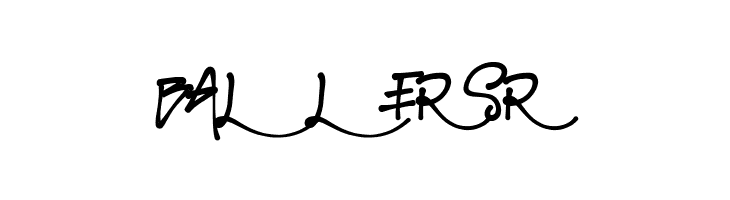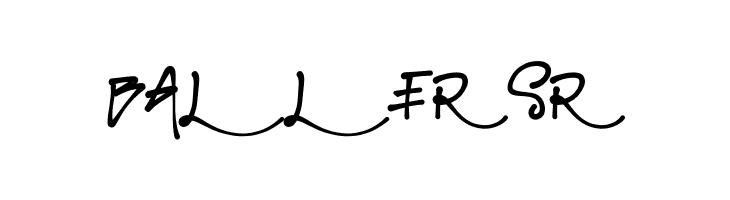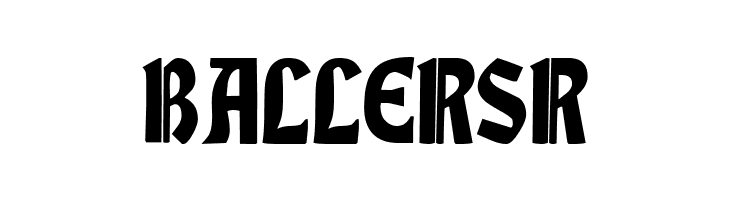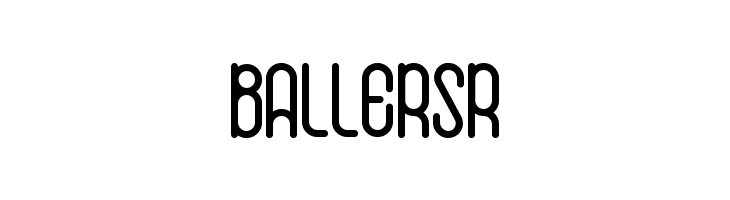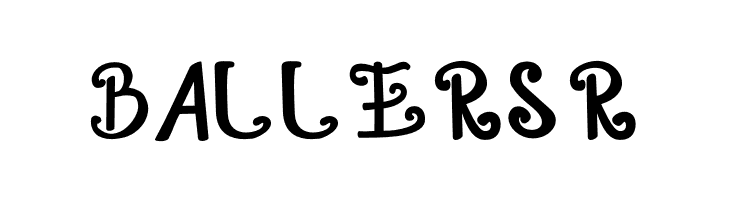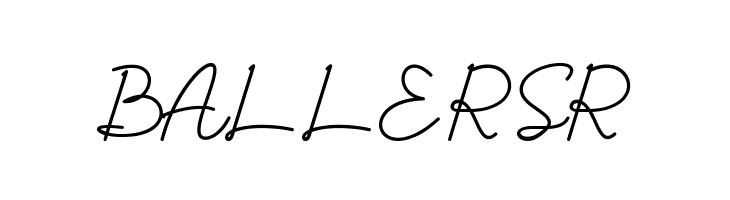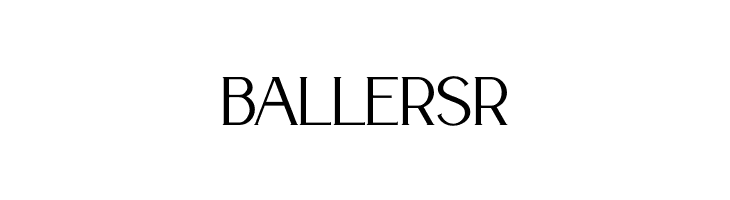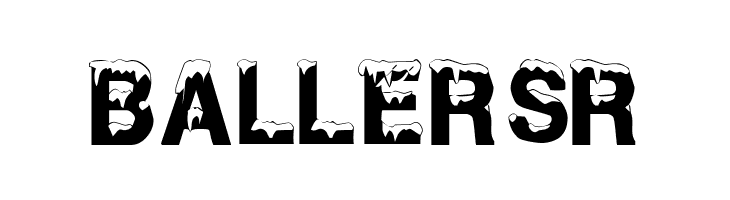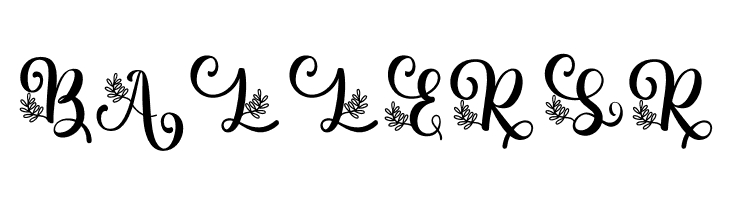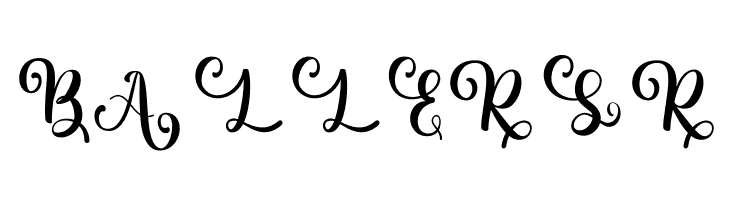
A digital-style font with segmented lines, ideal for tech-themed designs.
A bold, graffiti-inspired font with a textured, hand-painted look.
A bold, expressive script font with a fluid, handwritten style.
A bold, modern font with a strong presence and slightly condensed style.
A bold and dynamic font with elegant, slightly condensed uppercase letters and flowing lowercase characters.
A playful, whimsical font with bold, hand-drawn characters.
A modern, geometric sans-serif font with clean lines and even strokes.
A modern, geometric sans-serif typeface with clean lines and balanced proportions.
A bold, playful font with rounded, bubble-like characters and outlined edges.
An elegant and decorative font with intricate swirls and flourishes.
An ornate, floral-decorated font ideal for elegant and artistic projects.
A dynamic and expressive handwritten font with fluid, cursive letterforms.
A lively, cursive handwritten font with expressive strokes.
A dynamic handwritten font with expressive and fluid strokes.
A modern, sans-serif font with tall, narrow characters and consistent stroke width.
A graceful script font with flowing, connected strokes and a handwritten style.
A flowing, cursive script font with elegant, interconnected characters.
A rounded, modern typeface with clean lines and a friendly appearance.
A modern serif font with elegant lines and balanced proportions.
A bold, blackletter-style font with sharp angles and dramatic curves.
A bold, dramatic font with vintage and gothic influences, featuring thick strokes and sharp angles.
A bold, expressive script font with smooth, flowing characters.
A modern, geometric font with clean, rounded edges and consistent stroke width.
A bold, expressive script font with elegant, flowing curves.
A bold, blackletter-inspired font with sharp, angular lines and a gothic feel.